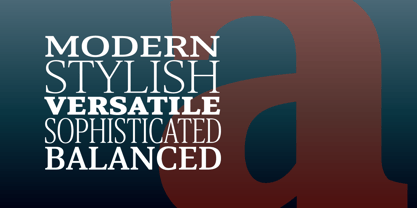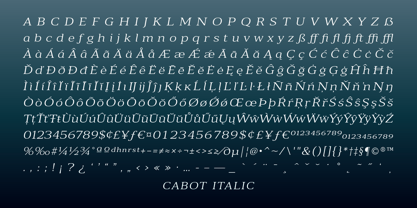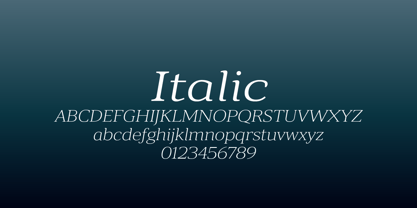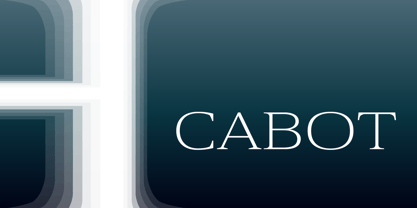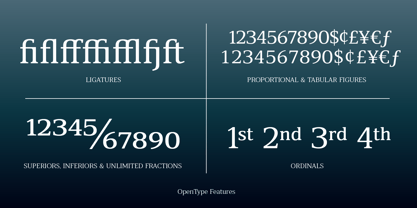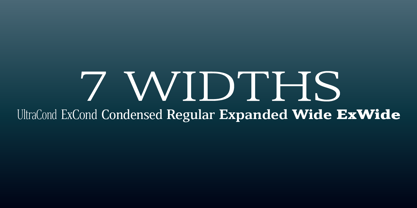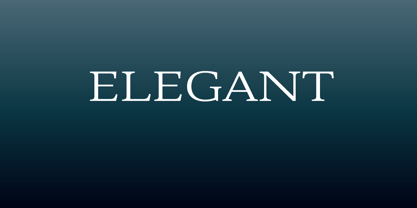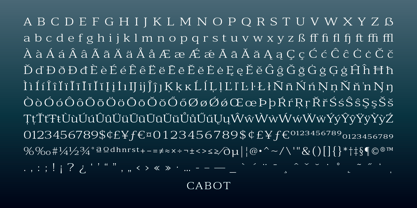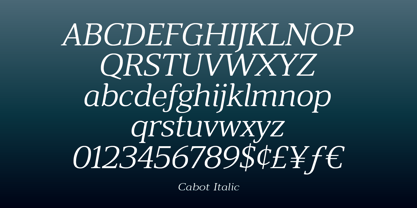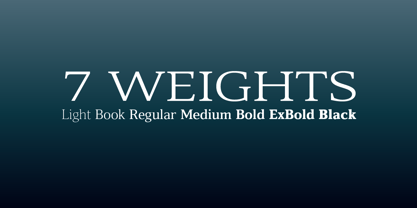
The Cabot Font Family was designed by Jim Lyles and published by Park Street Studio. Cabot contains 98 styles and family package options. More about this family
Cabot is a distinctive serif typeface family featuring a bracketed serif design, with a slight kink in it. It's an extensive family spanning 7 weights (Light to Black) and seven widths (Ultra Condensed to Extra Wide), in both roman and italic forms, making it extremely versatile for all kinds of text applications from print to screen and from book to headline and display. The lighter weights create an elegant air, while the heavier weights suggest a powerful presence. All of the Cabot fonts have an extended character set that supports many Western European languages, and each offers a array of OpenType features including ligatures, proportional and tabular figures, superiors and inferiors, unlimited fractions and ordinals.
Cabot